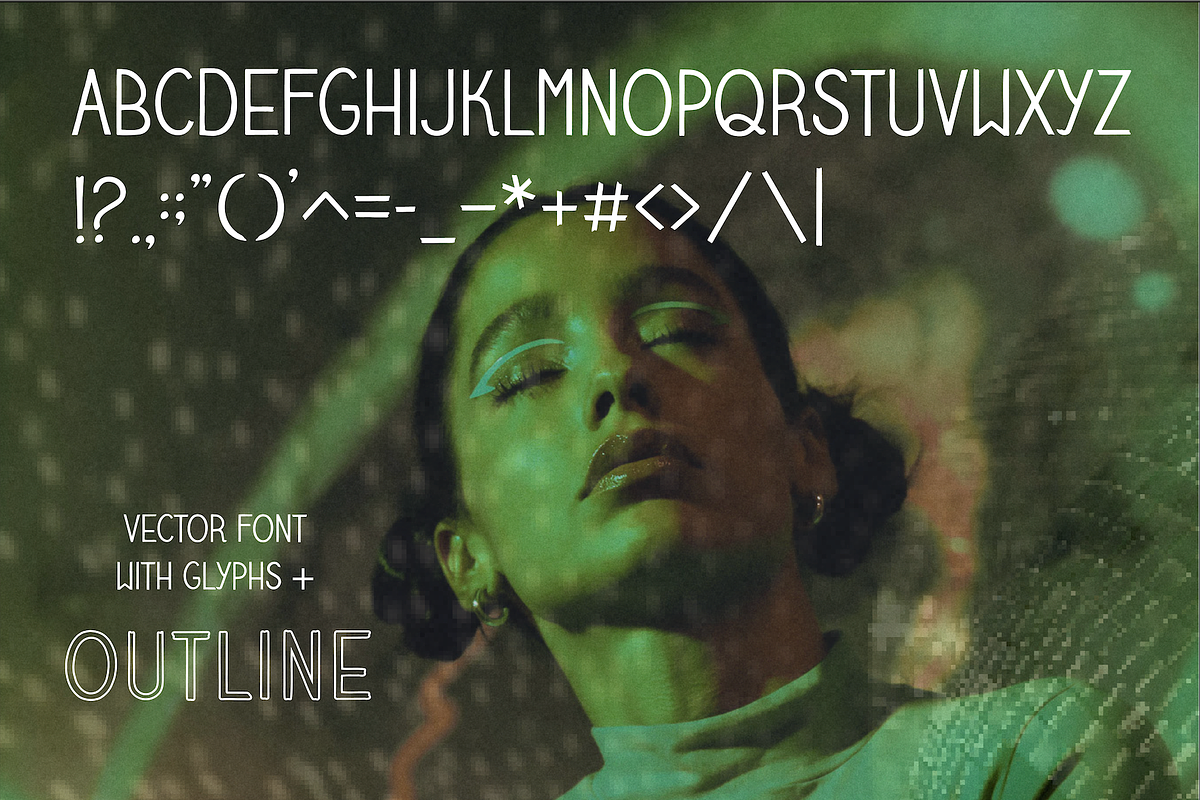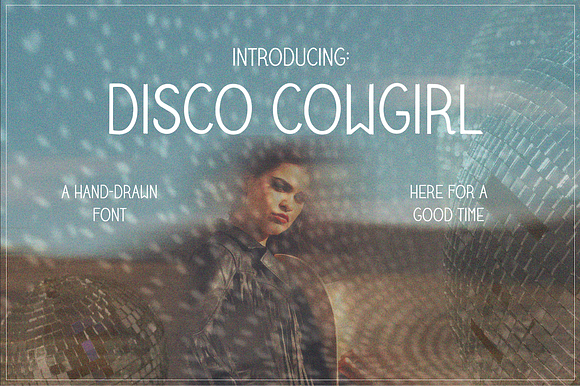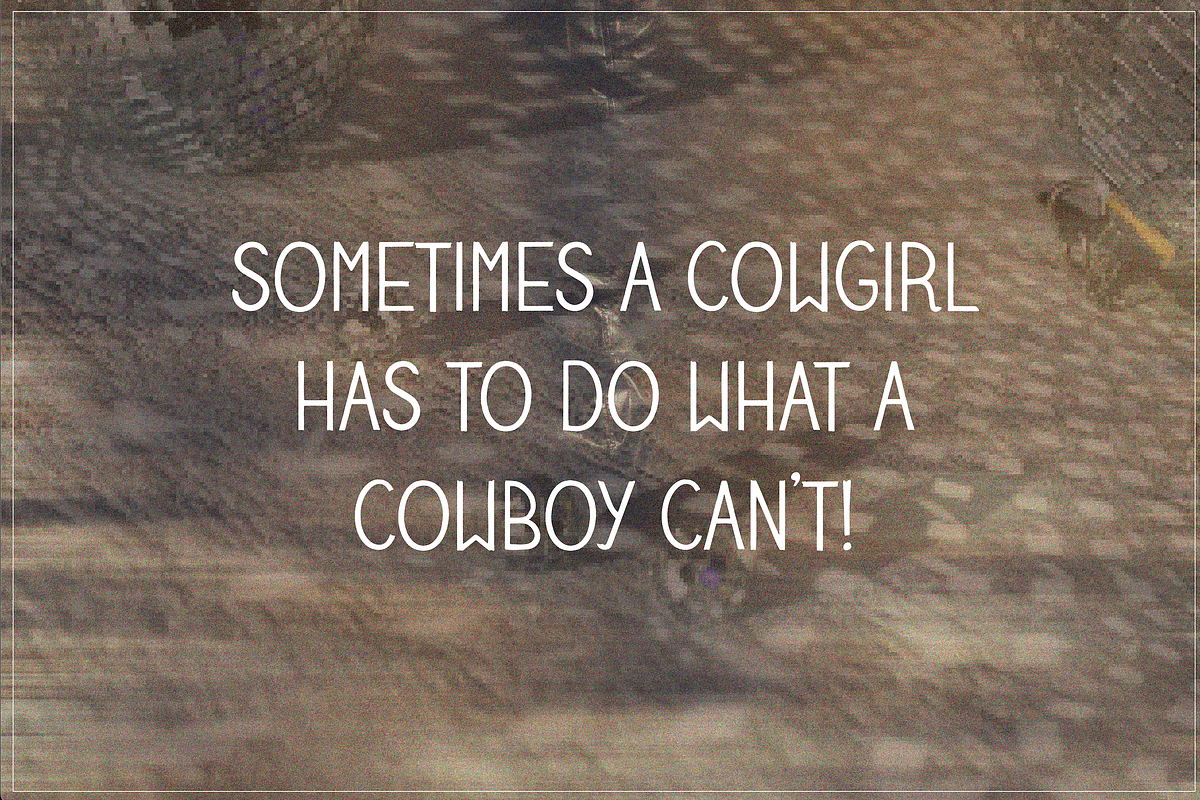
Disco Cowgirl Font
A hand drawn all-caps font for those who are rough and tough, but also a little delicate!
I love all things disco and western, so I drew this font to feel a at home on the ranch or as the life of the party.
- Cowgirl Handdrawn Regular
- Cowgirl Handdrawn Outline